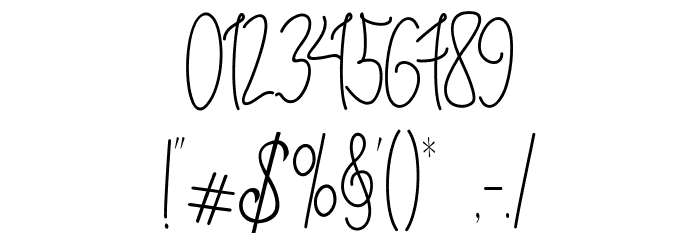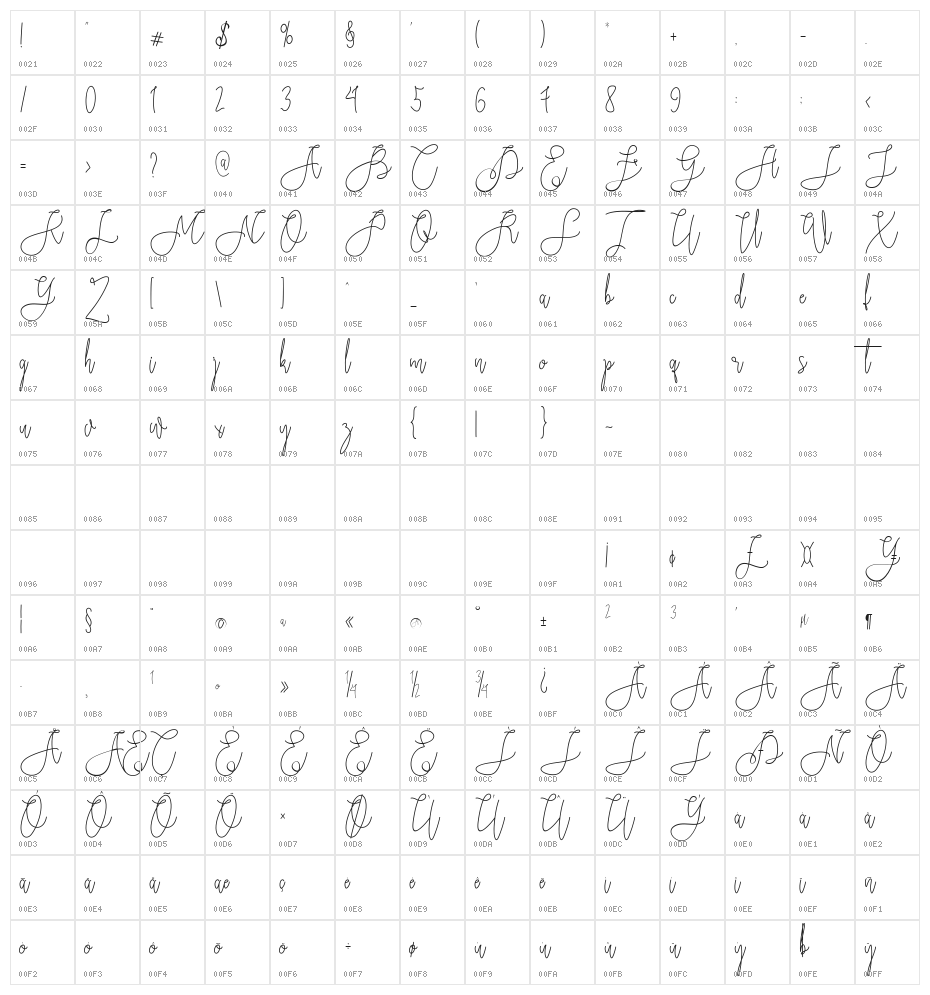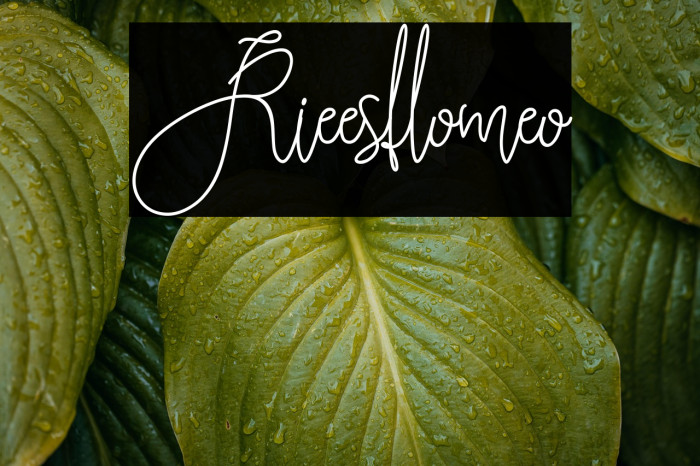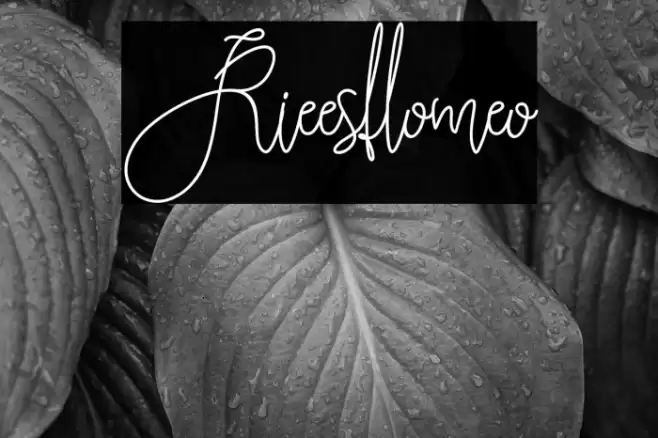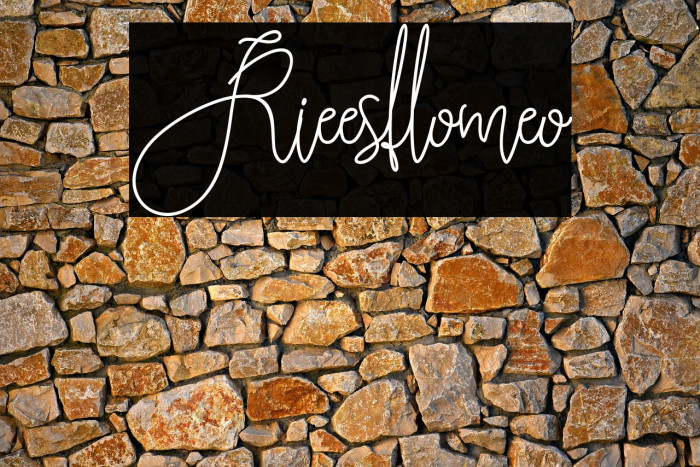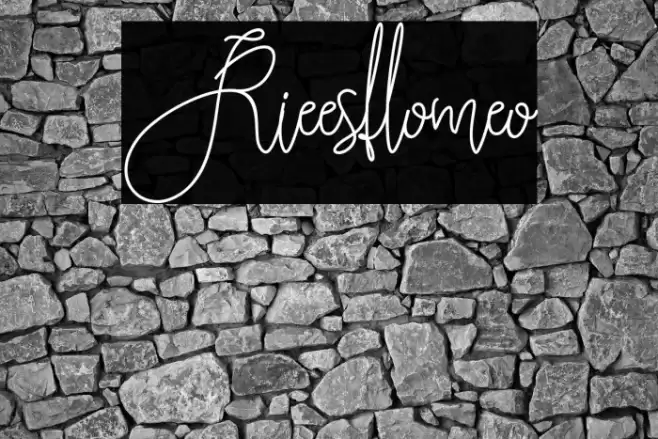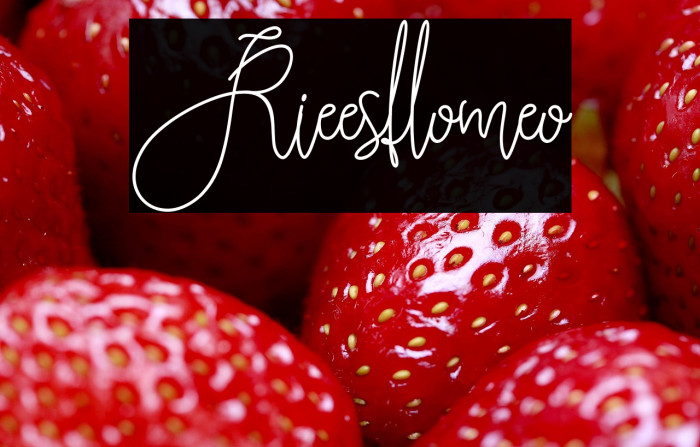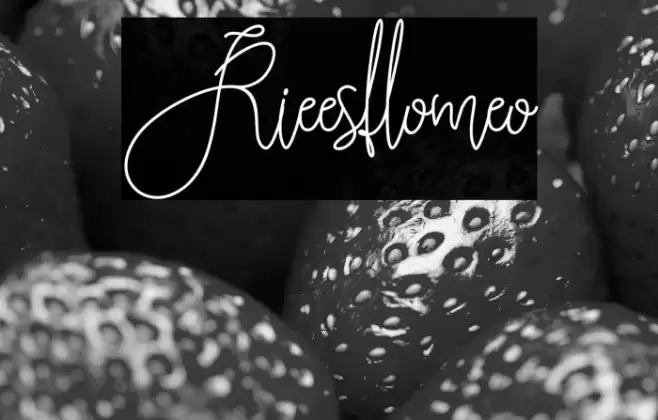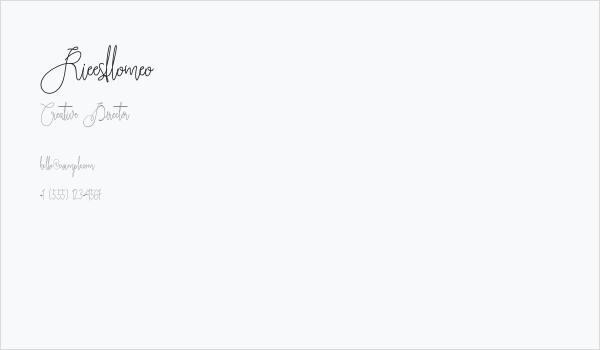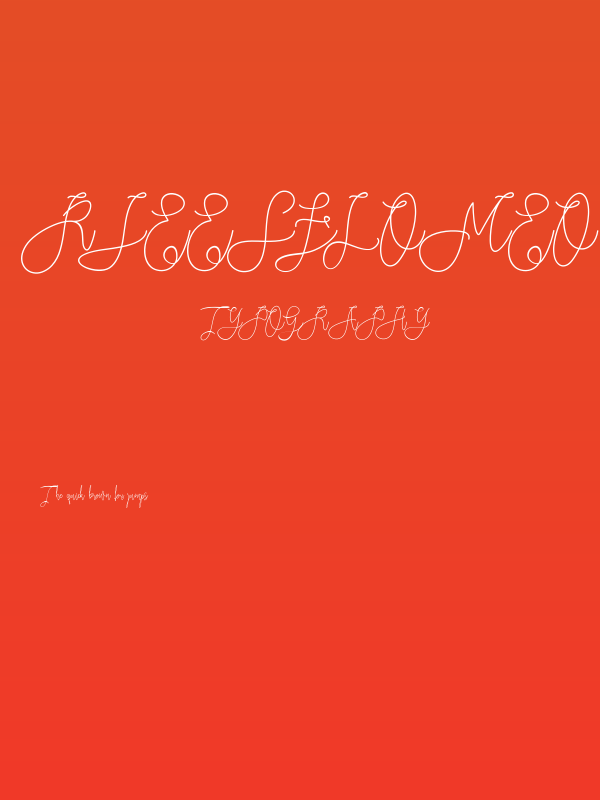
Rieesflomeo Font
Rieesflomeo Description
This font exhibits a flowing, cursive style with elegant loops and swirls, creating a sense of movement and grace. The uppercase letters are particularly ornate, with each character featuring unique flourishes and connections that enhance its decorative appeal. The lowercase letters maintain a consistent style, with smooth, rounded forms that complement the uppercase set. The numerals and special characters are designed to match the overall aesthetic, ensuring a cohesive look across all text elements. This font's intricate design makes it ideal for projects that require a touch of sophistication and elegance.